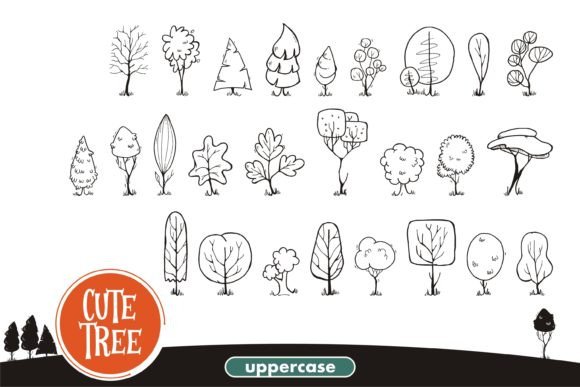
Cute Tree is a useful and fun dingbats font. Whether you’re using it for crafting, digital designing, presentations, or greeting cards, it’s perfect! This font has a lovely character, perfect for a wide variety of designs.
Cute Tree Font